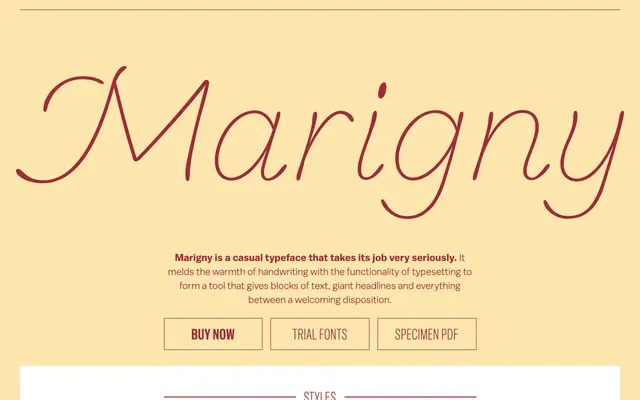
A casual serif from Type Supply that bridges handwritten warmth and text-setting practicality across five weights with matching italics.
Five weights from Thin to Black, each with an italic, give Marigny a working range that covers continuous text, display headlines and everything between. The family leans on calligraphic warmth without sacrificing functional spacing and OpenType features including small capitals, swash capitals, oldstyle figures, tabular figures, ligatures and contextual alternates. Latin Extended coverage spans over fifty languages.
Marigny blends handwriting warmth with text-setting functionality, placing it in the casual serif tradition where informal calligraphic influence meets structured typographic utility.